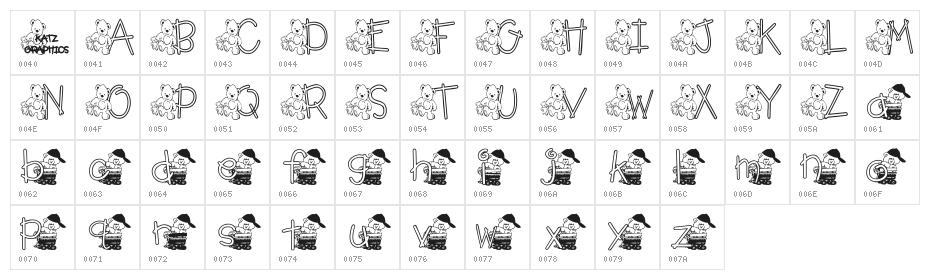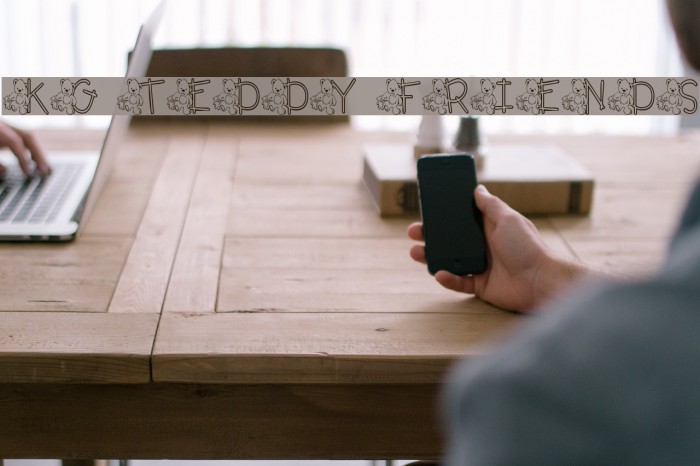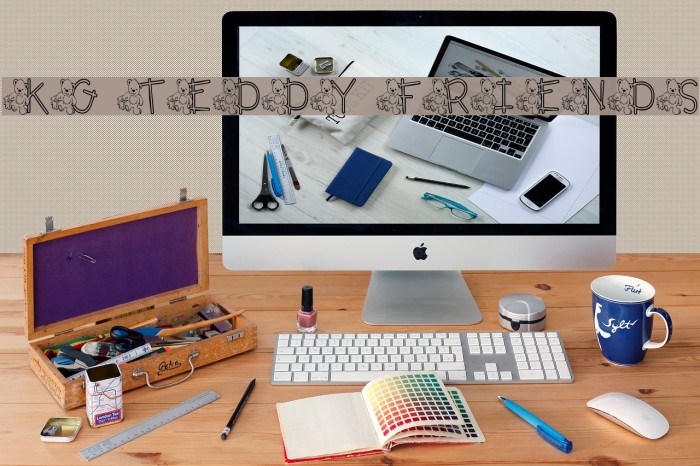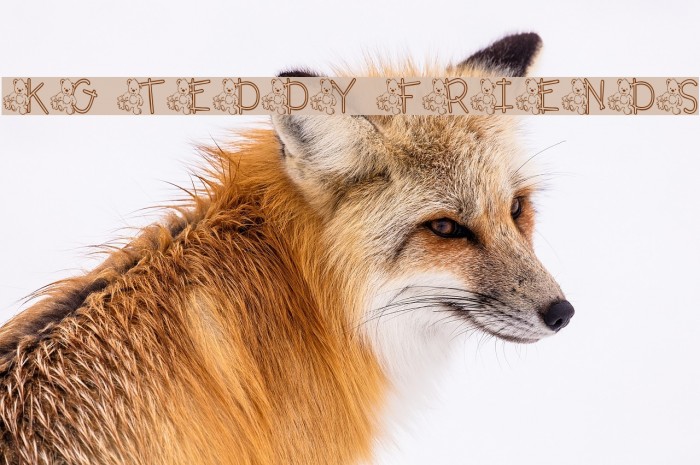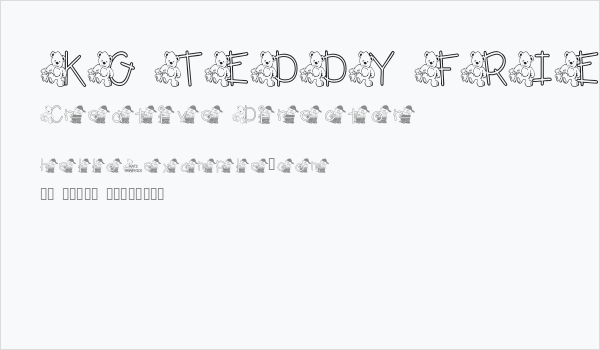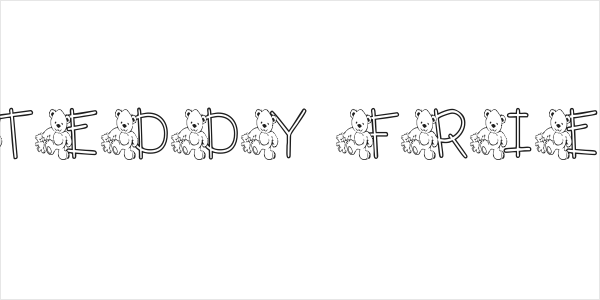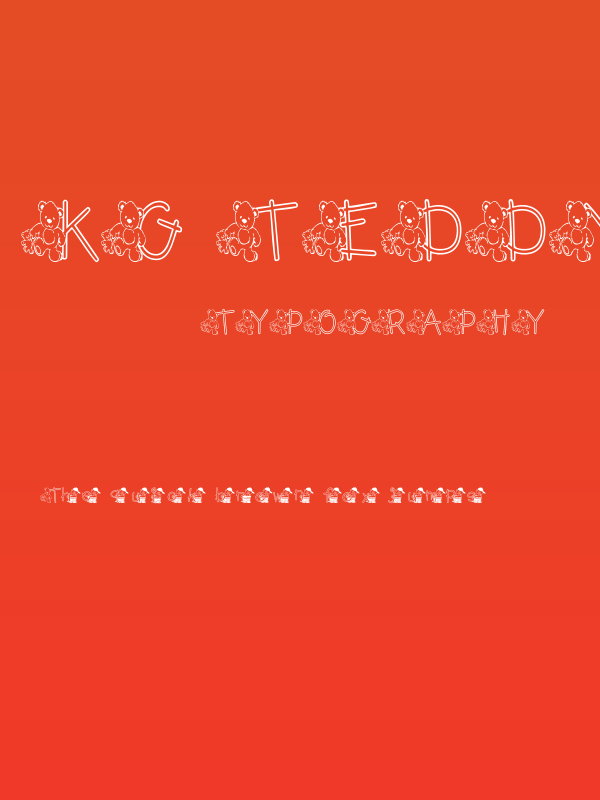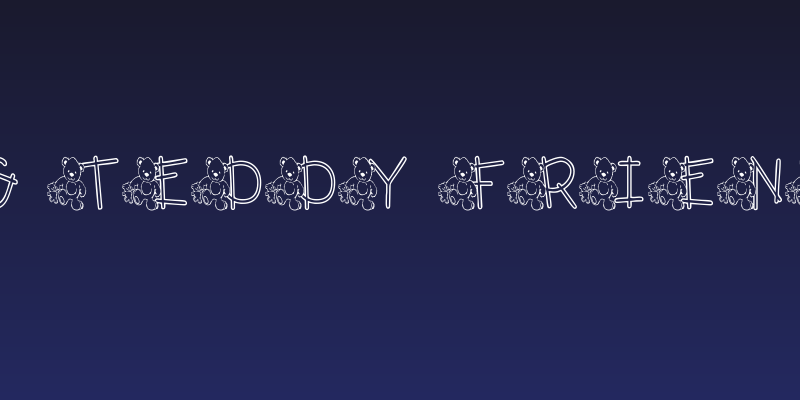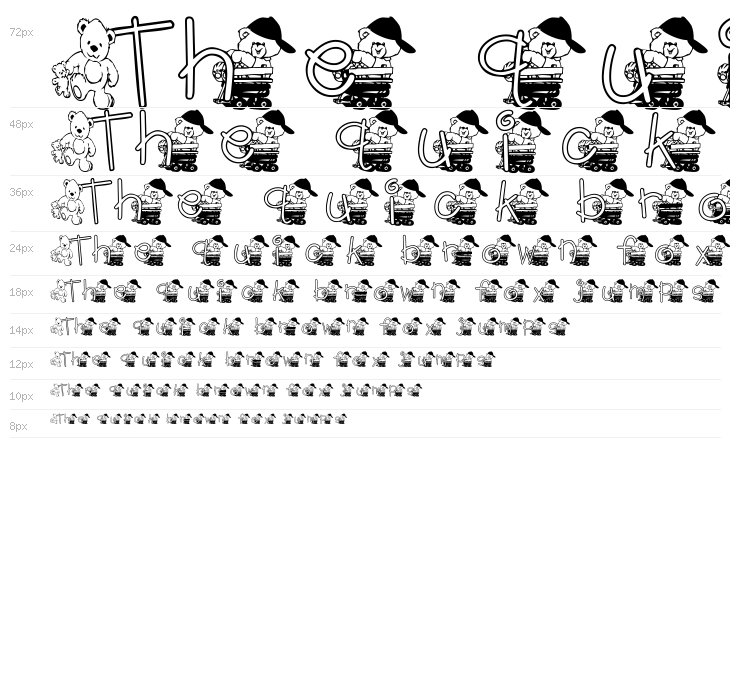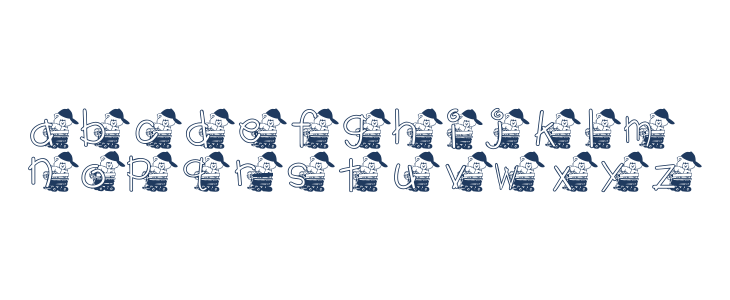
KG TEDDY FRIENDS Font
KG TEDDY FRIENDS Description
This whimsical font features playful teddy bear illustrations integrated into each letter, creating a charming and friendly appearance. The characters are outlined with a consistent stroke, and each letter is accompanied by a teddy bear, either hugging or interacting with the letterform. The font maintains a consistent size and style across both uppercase and lowercase letters, as well as numbers. The special characters also follow the same playful theme, making it ideal for children's projects or any design that requires a touch of fun and creativity. The overall look is decorative and engaging, perfect for capturing attention.
| Use Case | Headlines, Logos, Decorative text |
| Proposed Projects | Ideal for children's books, playful invitations, educational materials, and themed party decorations. |